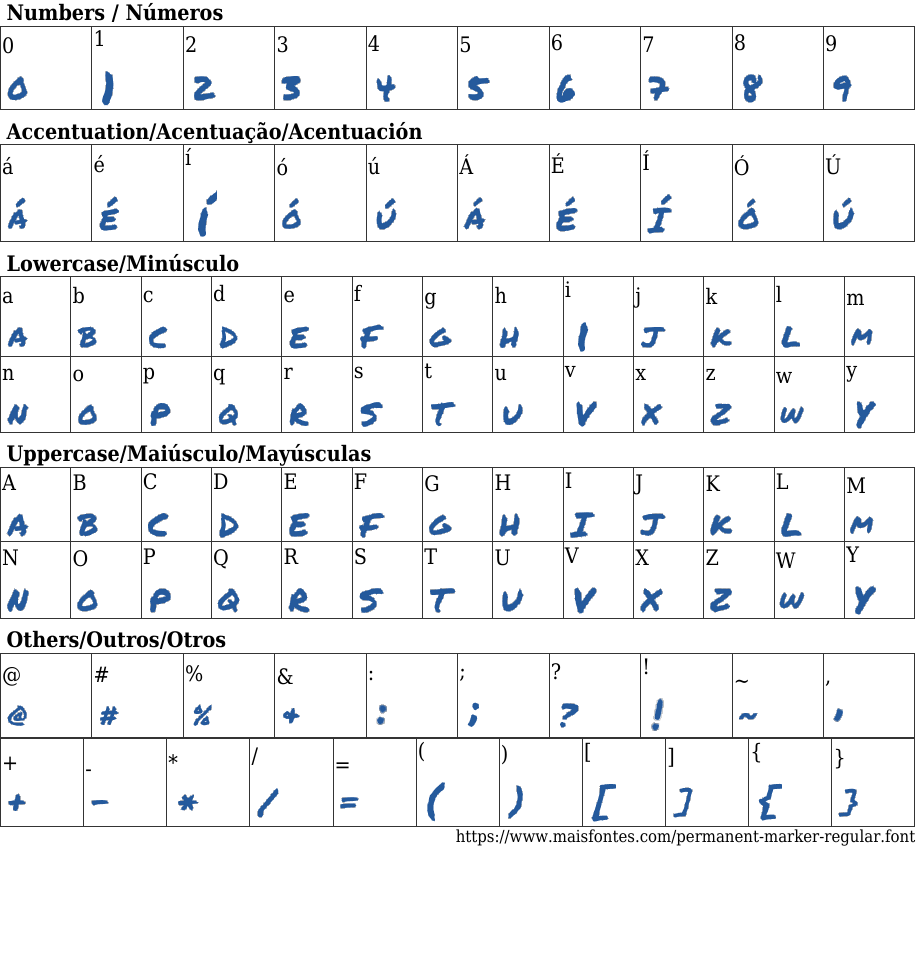
Discover the free permanent marker regular font at free font download ! Installable on pc, mac, linux, ios, and android platforms. The permanent marker font has been downloaded 89,495 times. The font was designed by font diner inc and. See how to download permanent marker regular for free! Permanent marker represents the look and feel of a favorite writing instrument. The font subfamily is regular. File script name permanentmarker.ttf download free for personal use. Download and install the permanent marker font by font diner. Permanent marker regular is the perfect font for all your fun designs.
Permanent Marker Regular Font Free Download The font was designed by font diner inc and. About permanent marker regular font don't you wish there were some way to. Installable on pc, mac, linux, ios, and android platforms. The font subfamily is regular. Download and install the permanent marker font by font diner. Permanent marker represents the look and feel of a favorite writing instrument. File script name permanentmarker.ttf download free for personal use. The font was designed by font diner inc and. Permanent marker regular is the perfect font for all your fun designs. Discover the free permanent marker font at free font download ! Download permanent marker font · free for commercial use · don't you wish there were some way to capture the essence of permanent marker on your. See how to download permanent marker regular for free! The permanent marker font has been downloaded 89,495 times. Discover the free permanent marker regular font at free font download ! Installable on pc, mac, linux, ios, and android platforms.
Permanent Marker Font Download Fonts4Free Permanent Marker Regular Font Free Download See how to download permanent marker regular for free! About permanent marker regular font don't you wish there were some way to. Permanent marker represents the look and feel of a favorite writing instrument. Permanent marker regular is the perfect font for all your fun designs. Installable on pc, mac, linux, ios, and android platforms. File script name permanentmarker.ttf download. Permanent Marker Regular Font Free Download.
Permanent Marker Regular Font xFonts.pro Permanent Marker Regular Font Free Download Permanent marker represents the look and feel of a favorite writing instrument. File script name permanentmarker.ttf download free for personal use. See how to download permanent marker regular for free! Permanent marker regular is the perfect font for all your fun designs. Discover the free permanent marker regular font at free font download ! Download and install the permanent marker. Permanent Marker Regular Font Free Download.
Permanent Marker Font 1001 Free Fonts Permanent Marker Regular Font Free Download Discover the free permanent marker regular font at free font download ! Download and install the permanent marker font by font diner. About permanent marker regular font don't you wish there were some way to. Installable on pc, mac, linux, ios, and android platforms. See how to download permanent marker regular for free! Download permanent marker font · free for. Permanent Marker Regular Font Free Download.
Permanent Marker Font Free Download Fonts Bee Permanent Marker Regular Font Free Download The font subfamily is regular. Installable on pc, mac, linux, ios, and android platforms. About permanent marker regular font don't you wish there were some way to. The permanent marker font has been downloaded 89,495 times. File script name permanentmarker.ttf download free for personal use. Download and install the permanent marker font by font diner. Installable on pc, mac, linux,. Permanent Marker Regular Font Free Download.
35+ of the Best Marker Fonts Vandelay Design Permanent Marker Regular Font Free Download and install the permanent marker font by font diner. About permanent marker regular font don't you wish there were some way to. Installable on pc, mac, linux, ios, and android platforms. Discover the free permanent marker font at free font download ! See how to download permanent marker regular for free! Discover the free permanent marker regular font at. Permanent Marker Regular Font Free Download.